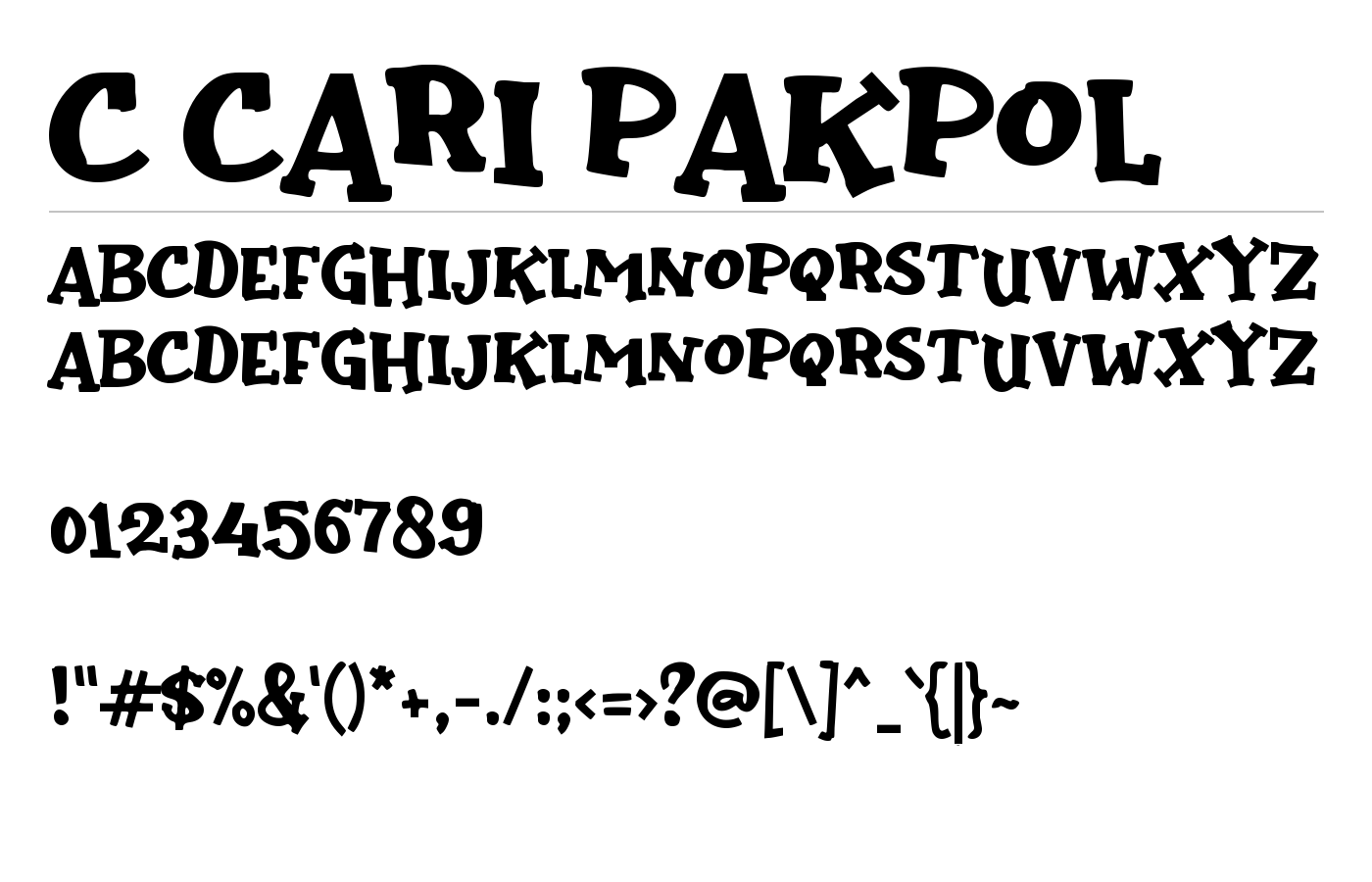
C Cari Pakpol is a bold, playful sans serif font with a slightly irregular, hand-drawn feel. Its chunky, uneven letterforms and lively curves give it an informal and approachable character, making it ideal for fun, creative designs like posters, children’s books, and casual branding. This font stands out with its energetic style, perfect for projects that want to convey friendliness and originality.
c Cari Pakpol Font
About c Cari Pakpol Font